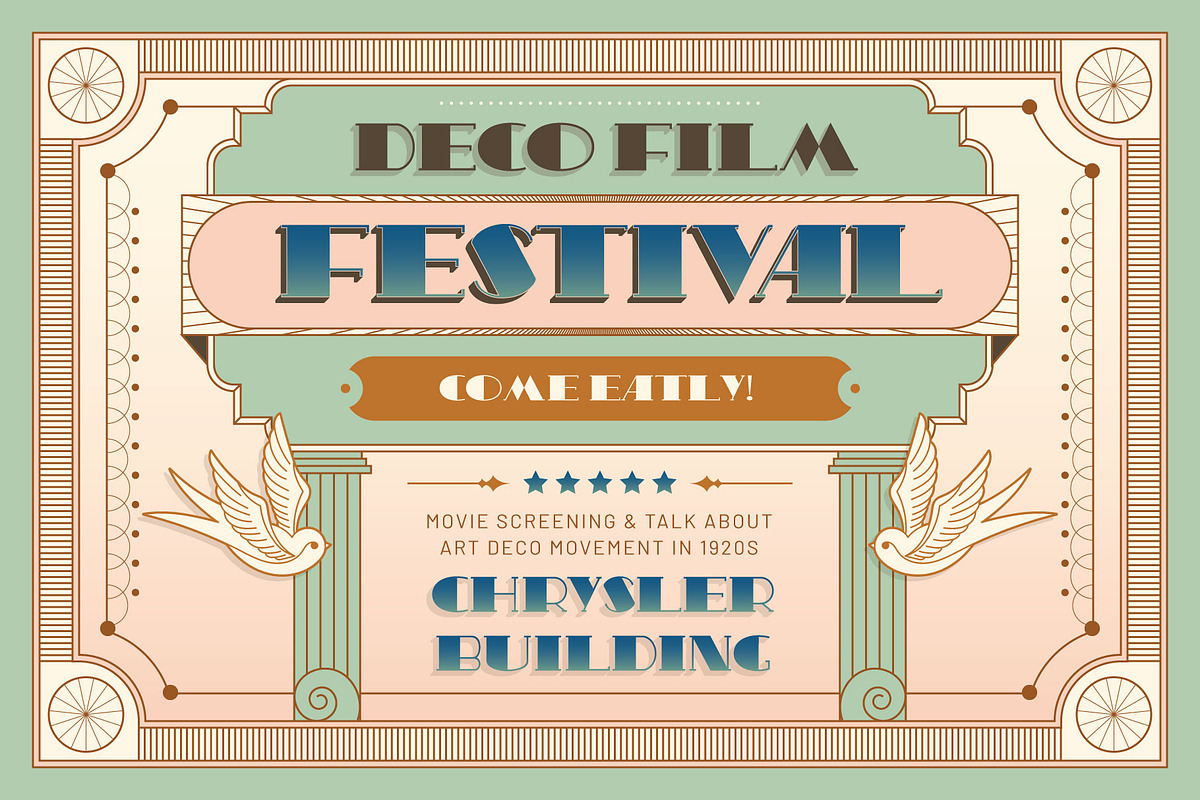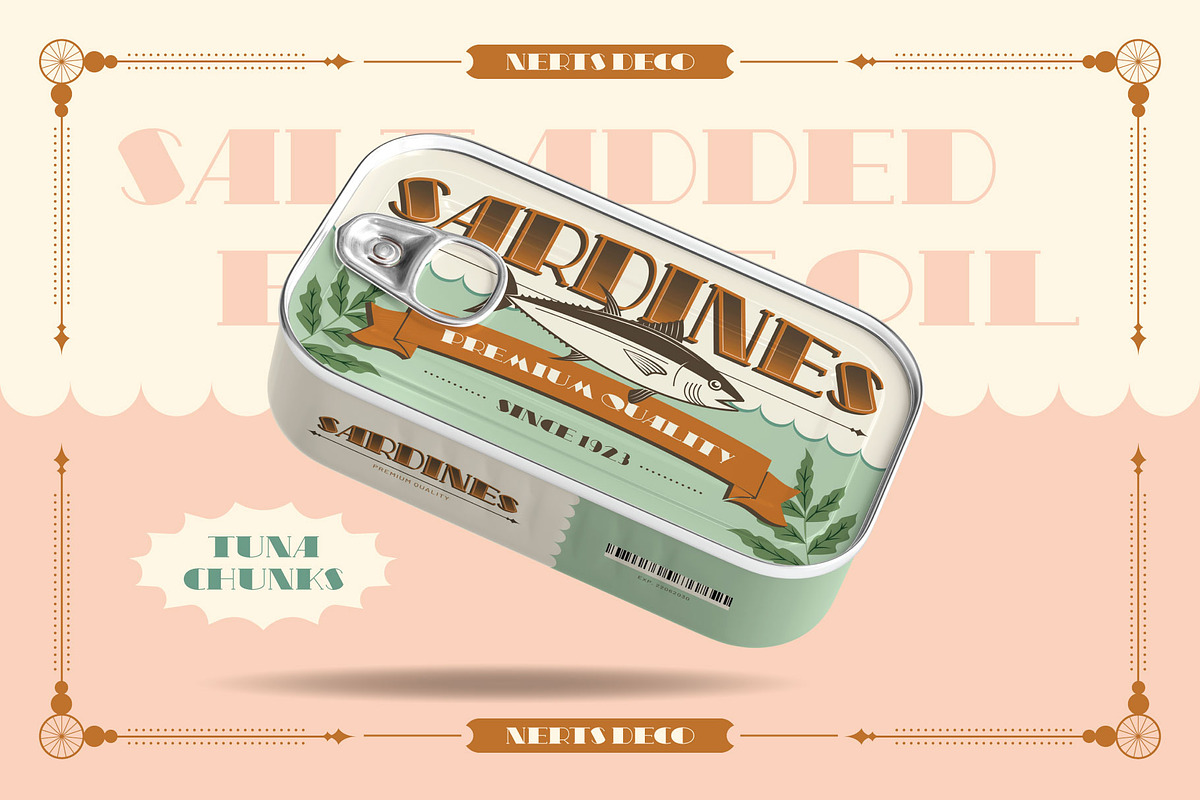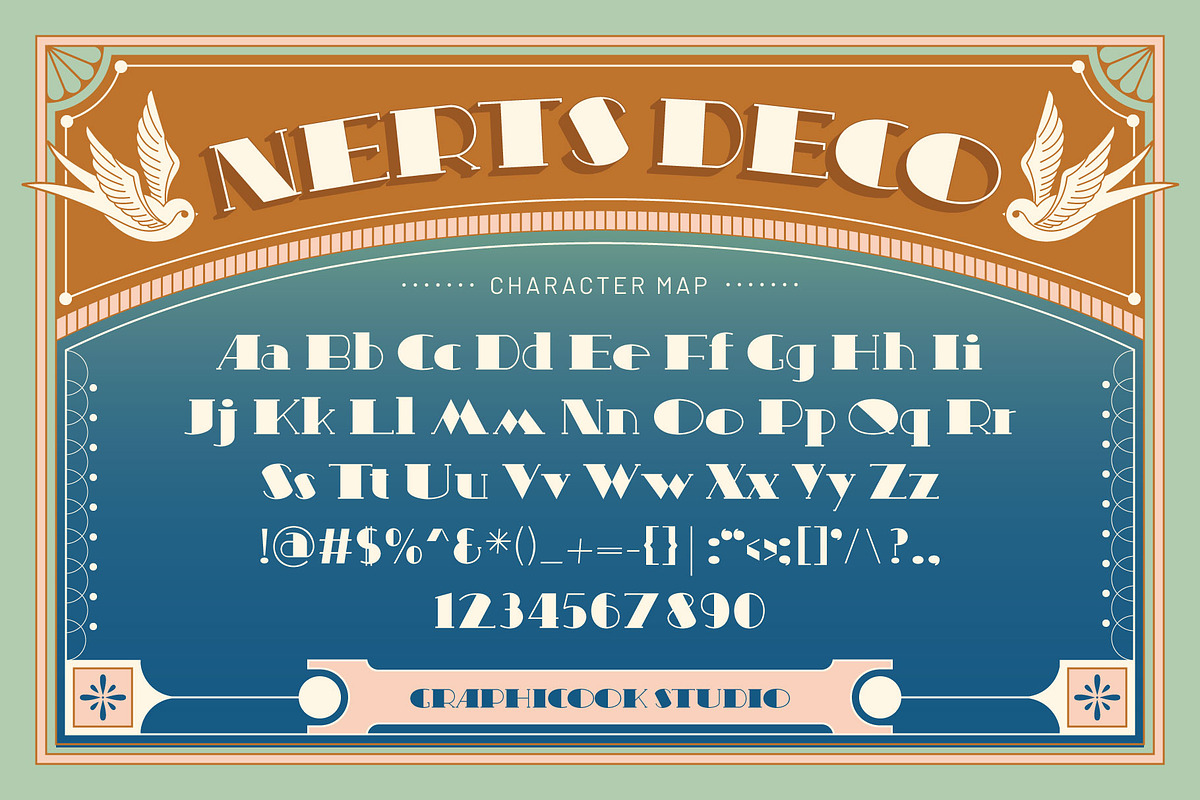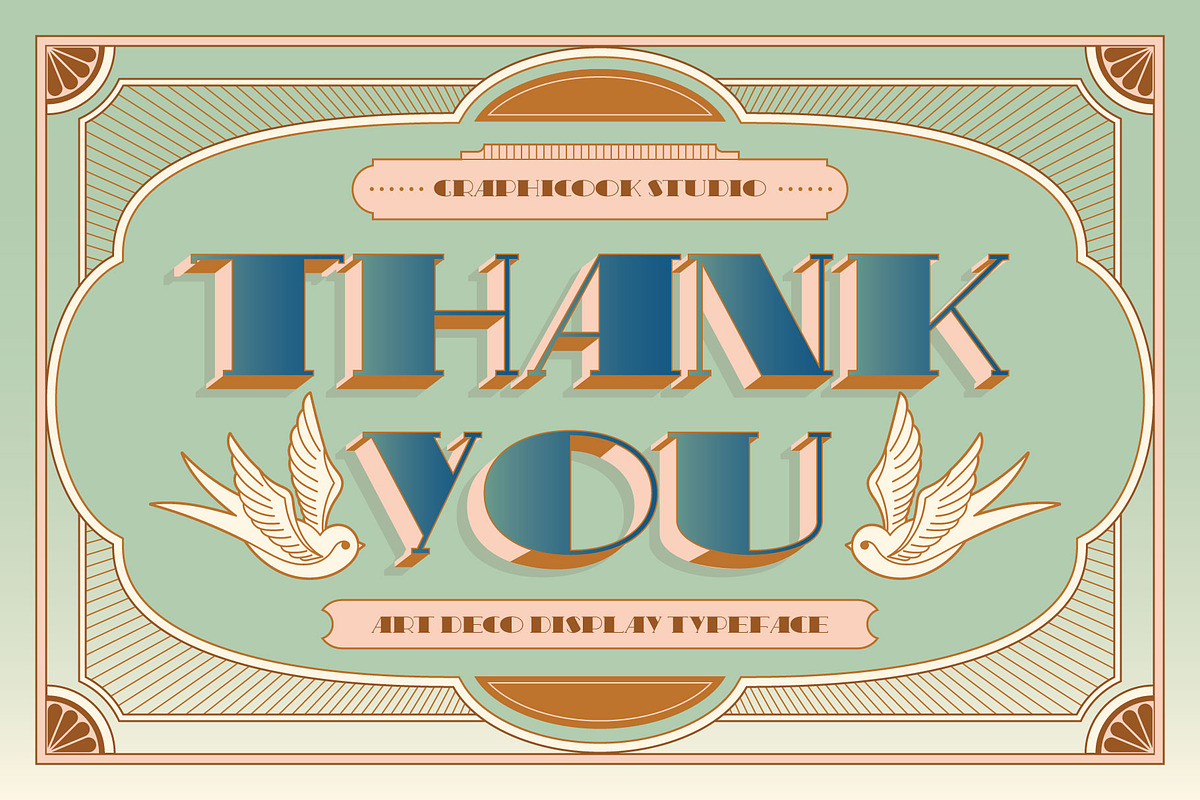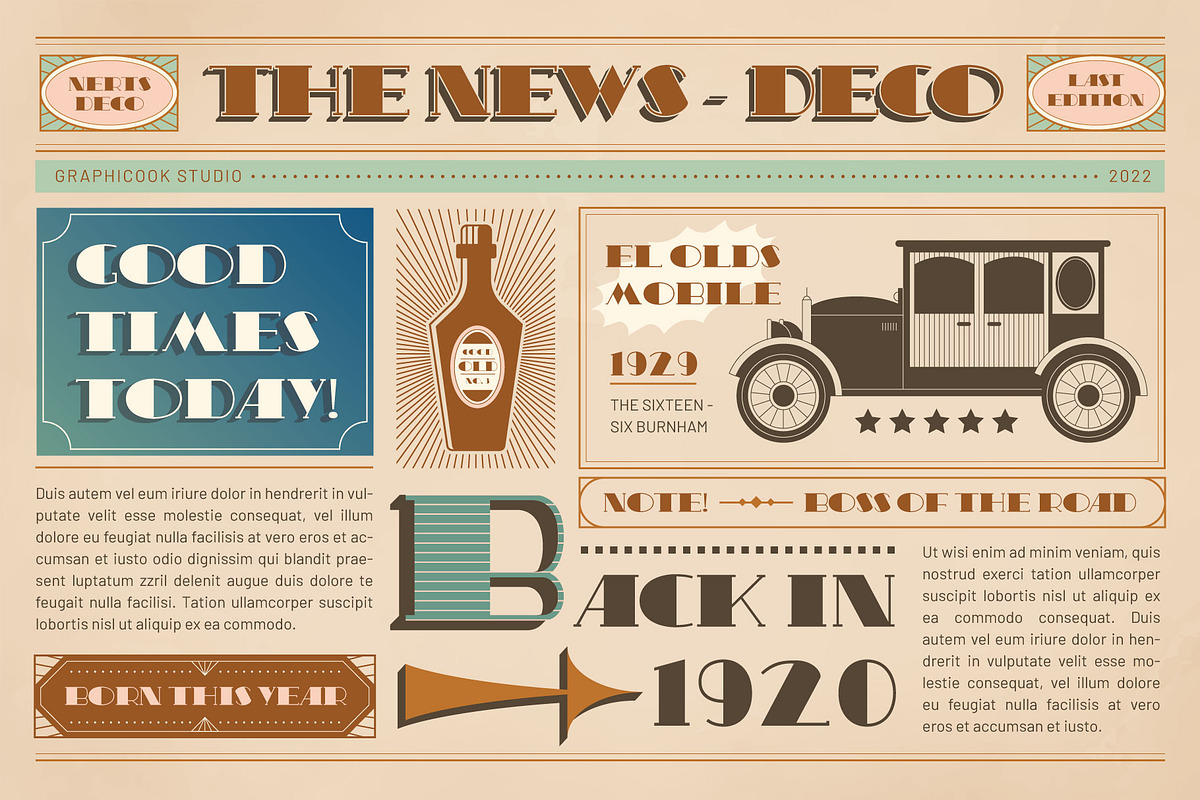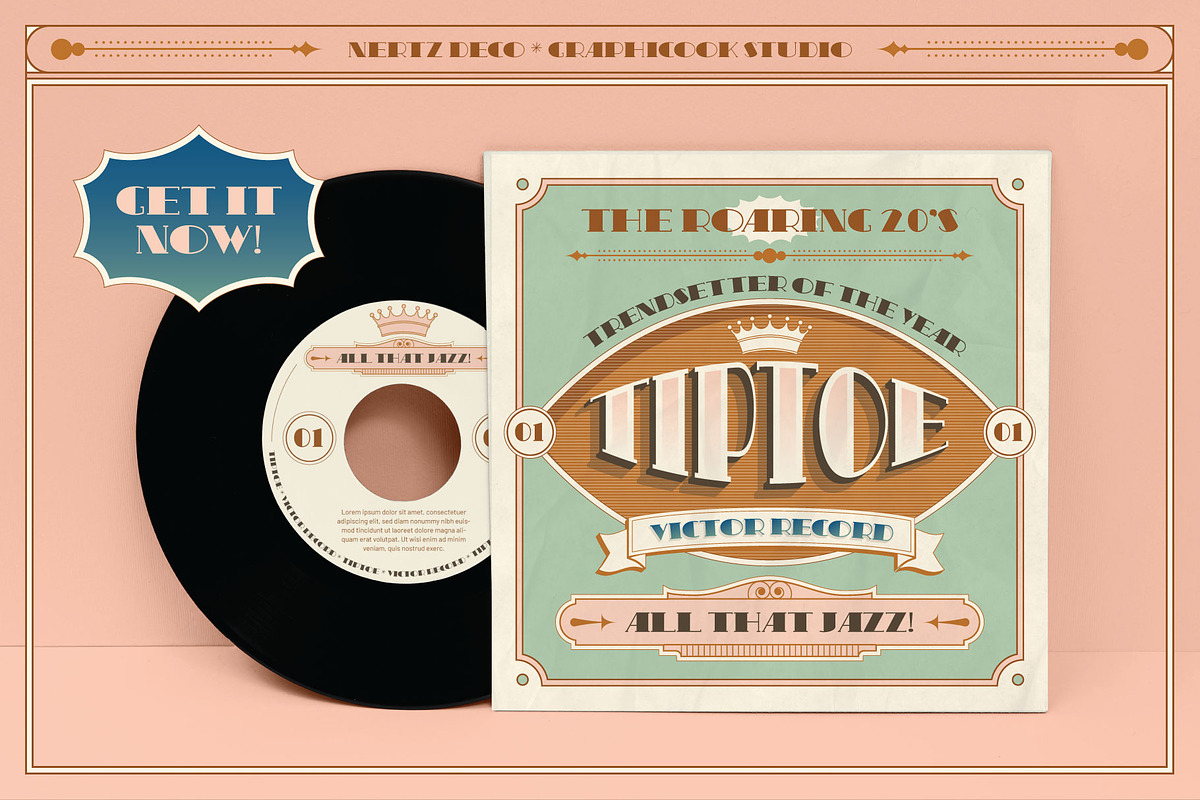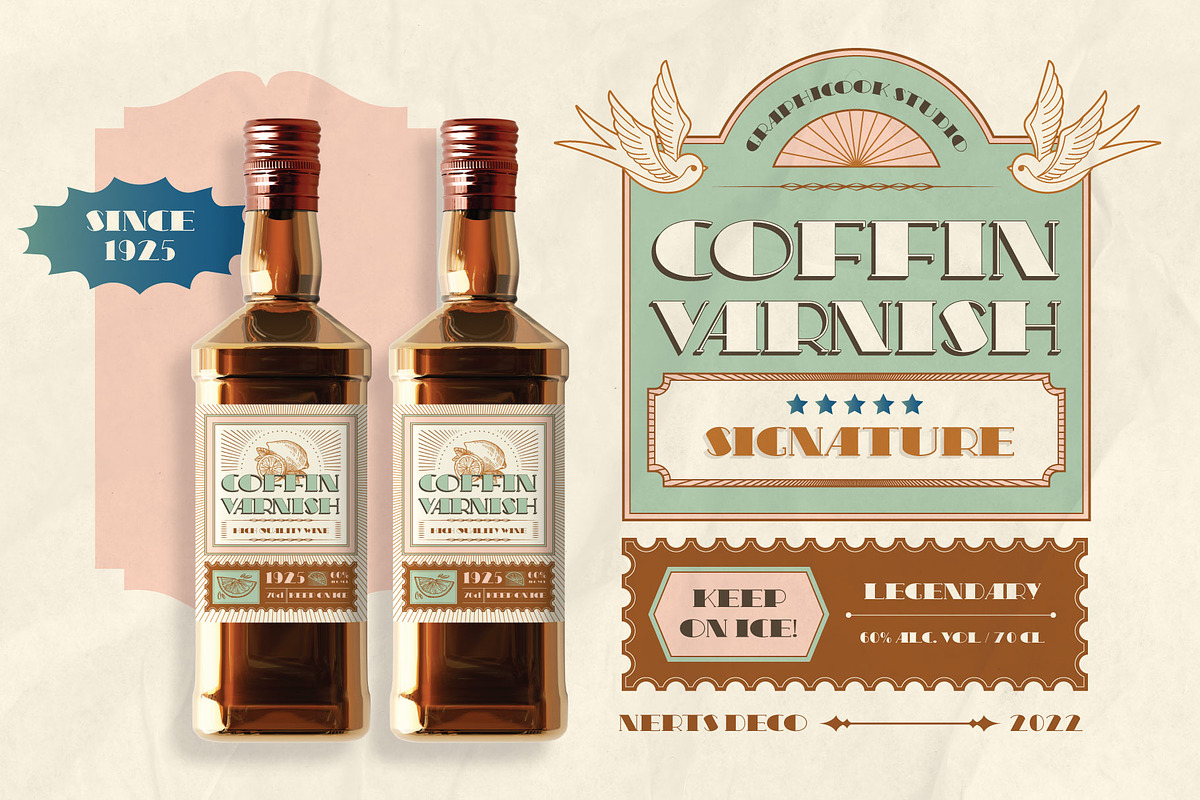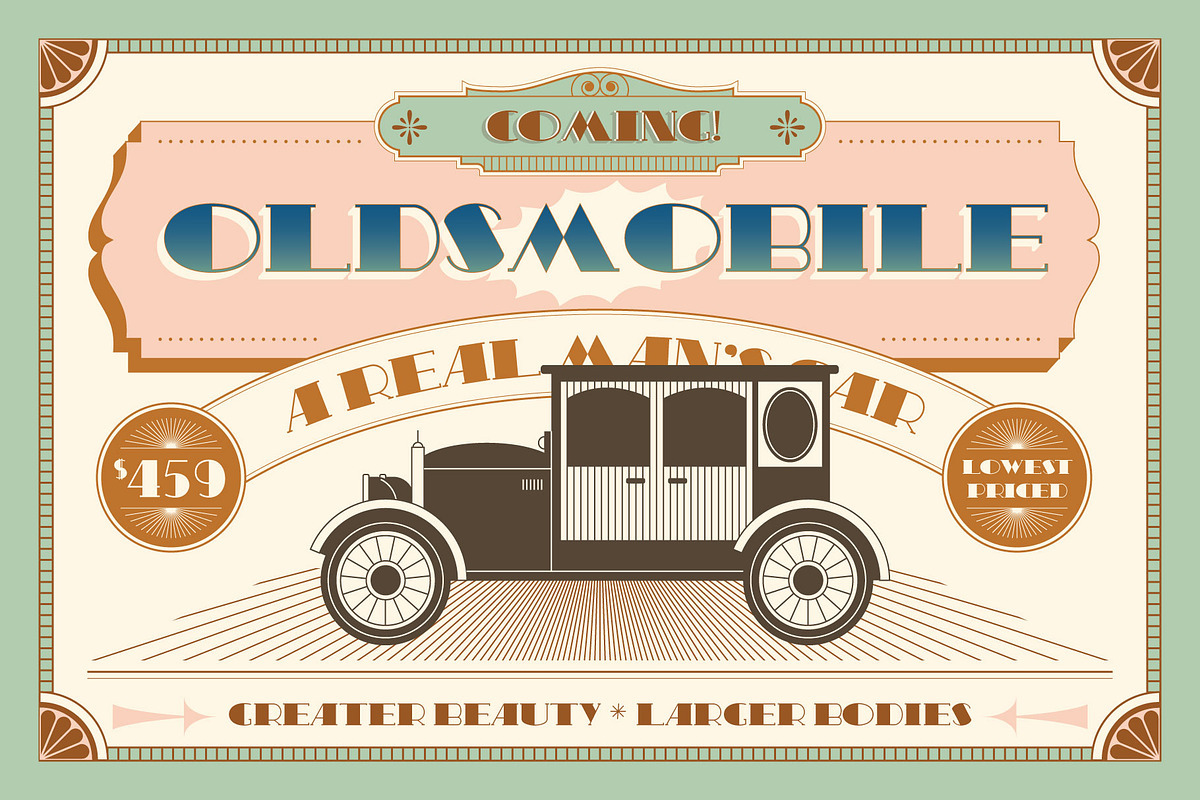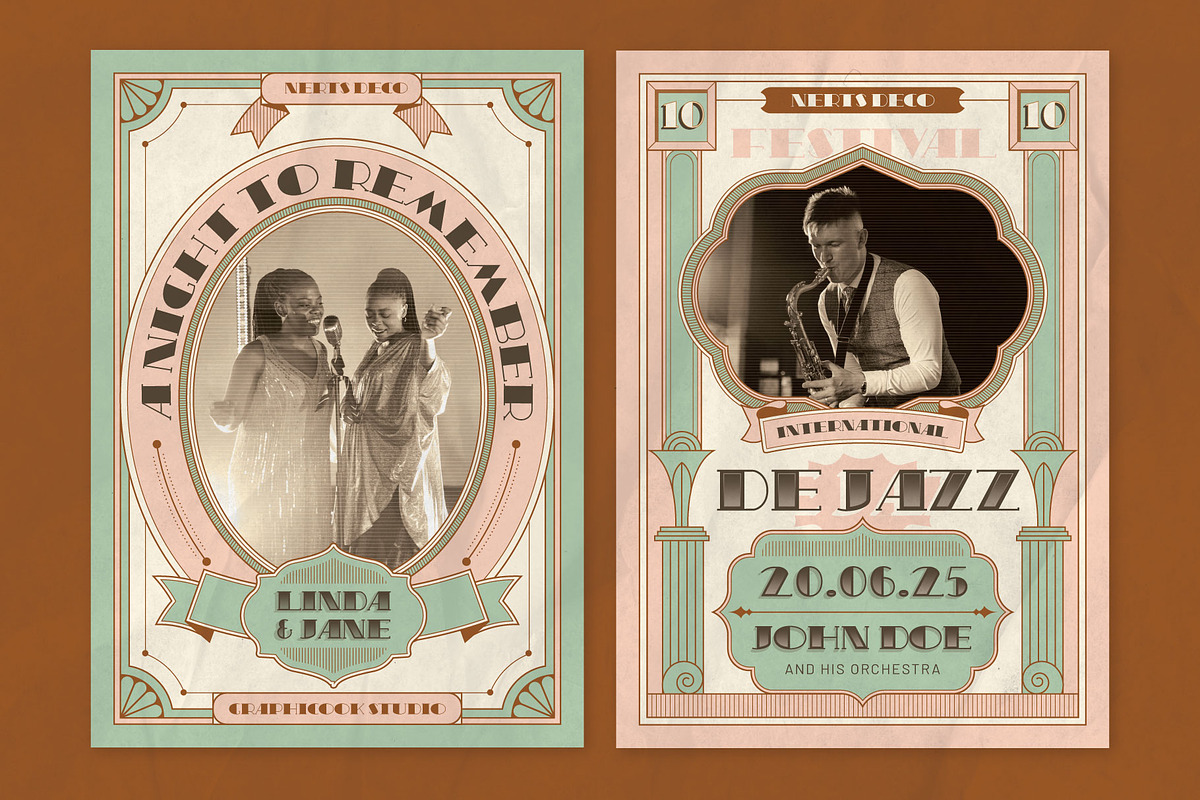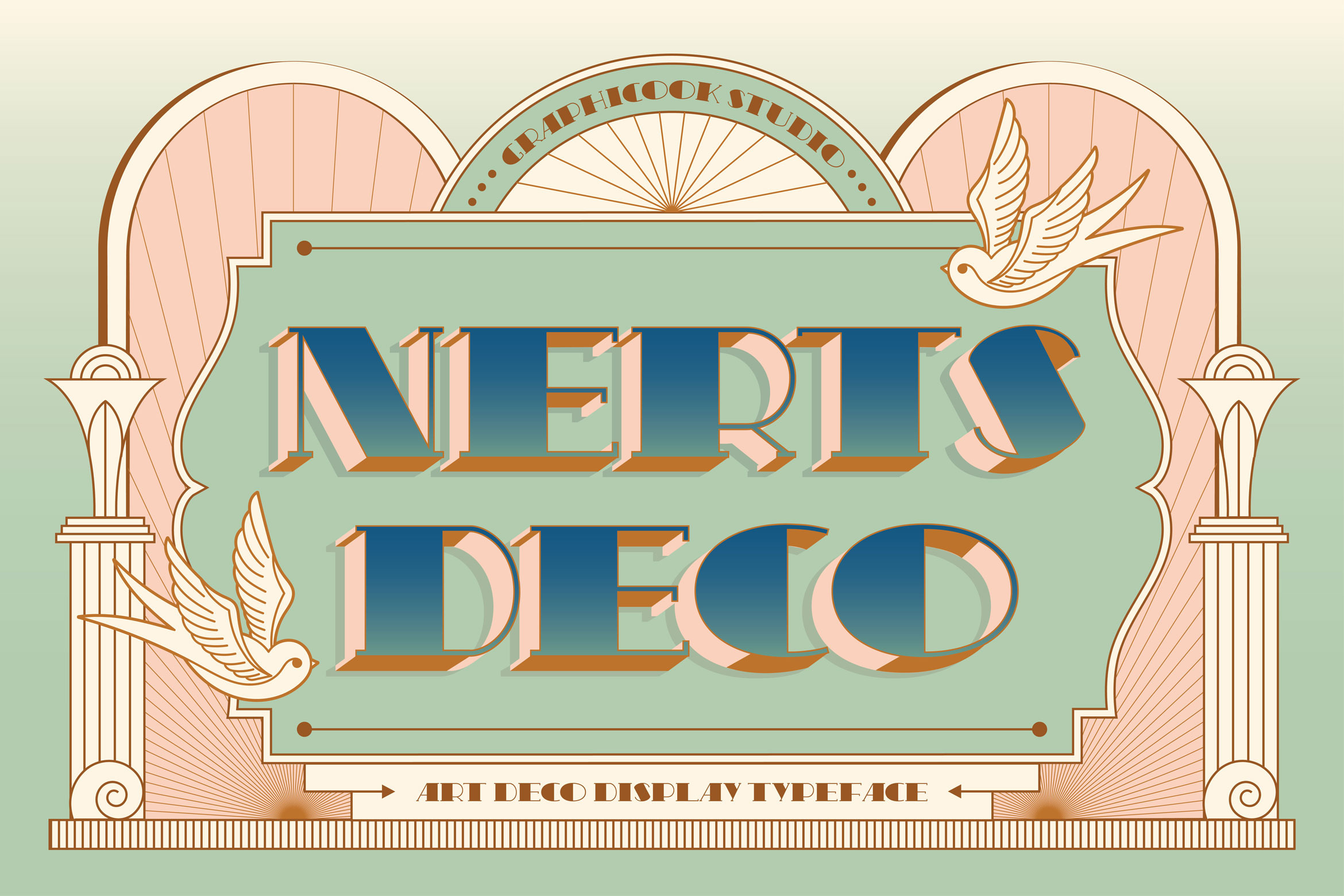
Nerts Deco Artdeco Display Typeface
Introducing Nets Deco Display typeface, heavy influence by Art Deco design era through combine with modern touch.
Seristic is perfect for headlines, logotypes, magazines, packages, movies, games and many more.